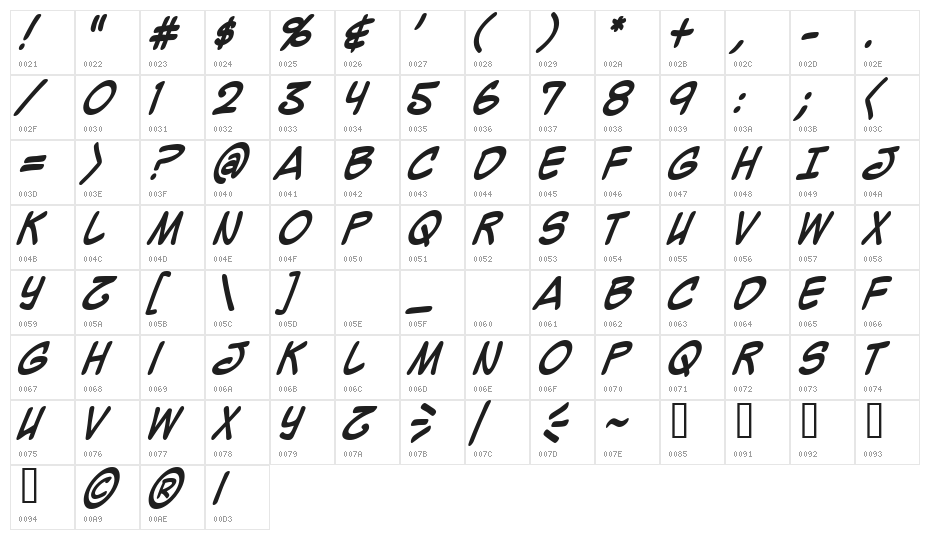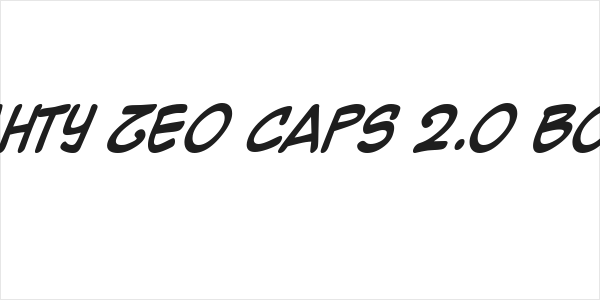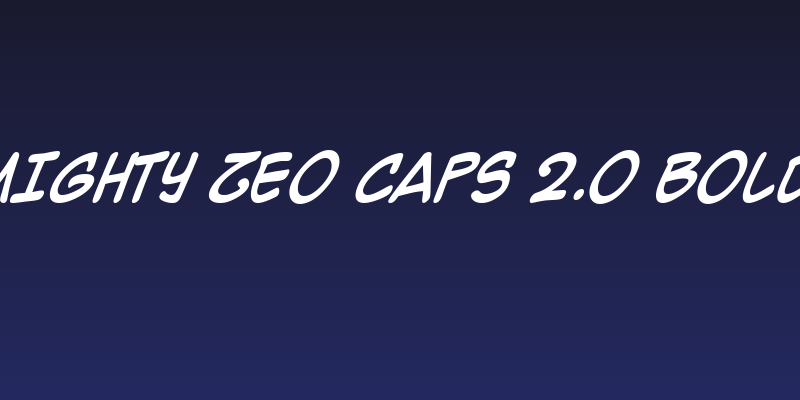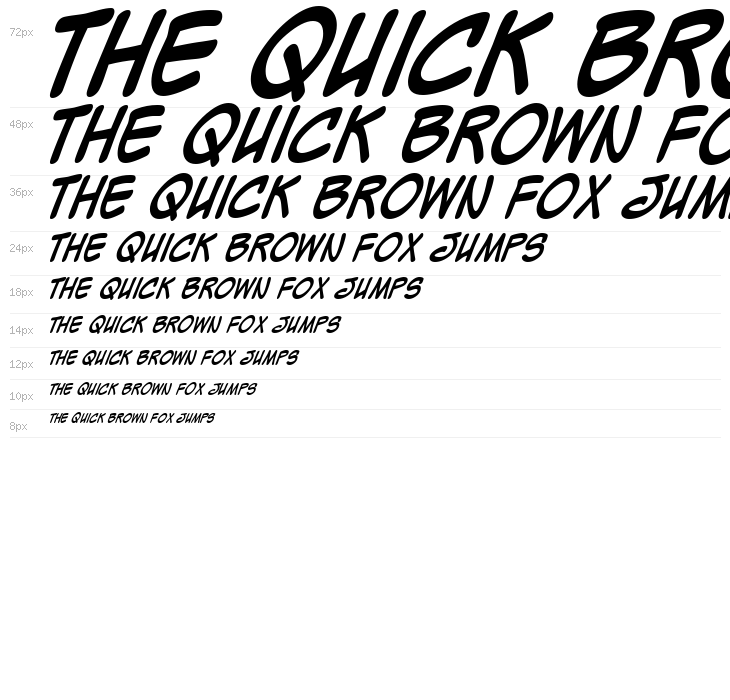
Mighty Zeo Caps 2.0 Bold Font
Mighty Zeo Caps 2.0 Bold Description
This font features a bold, dynamic script style with a strong presence. The letters are slanted, giving a sense of motion and energy. Each character is well-defined with smooth curves and a consistent stroke width, contributing to its bold appearance. The uppercase and lowercase letters maintain a cohesive look, while the numerals and special characters are crafted to match the overall style. This font is ideal for projects that require a lively and impactful visual element.
| Proposed Projects | Ideal for branding, posters, headlines, and any design needing a bold, energetic script. |